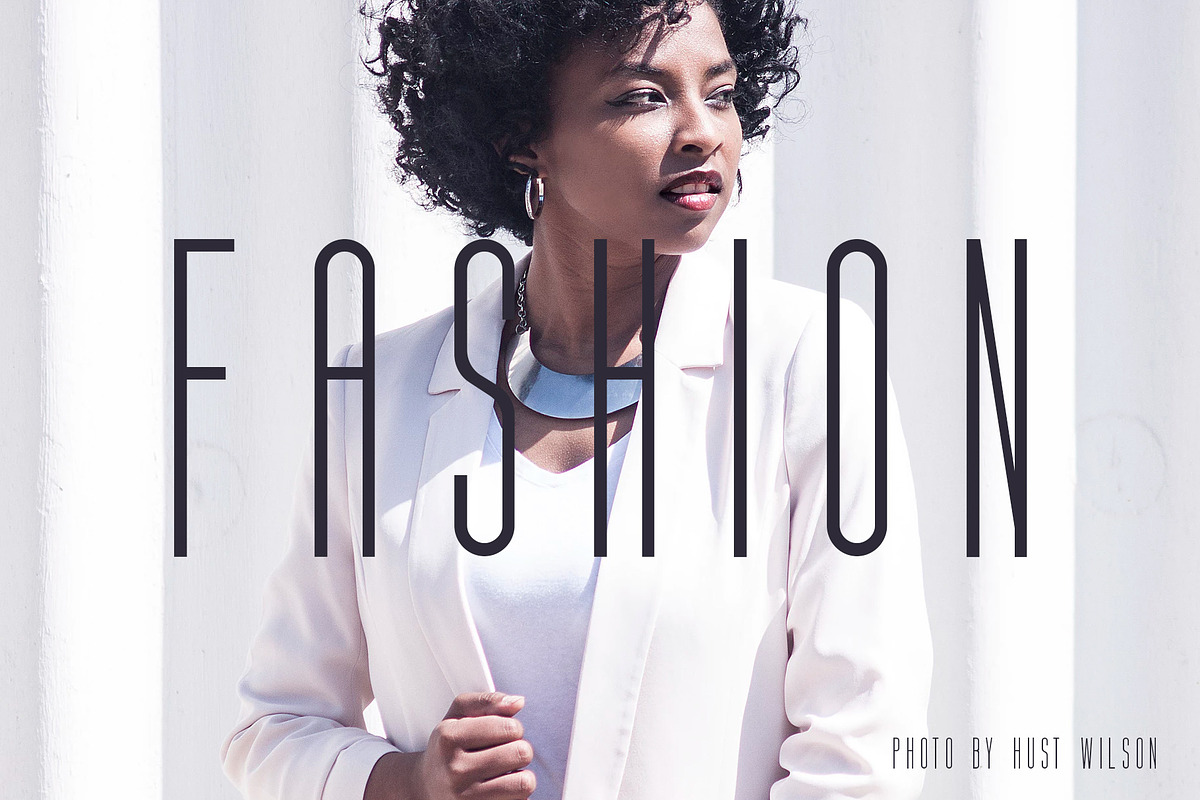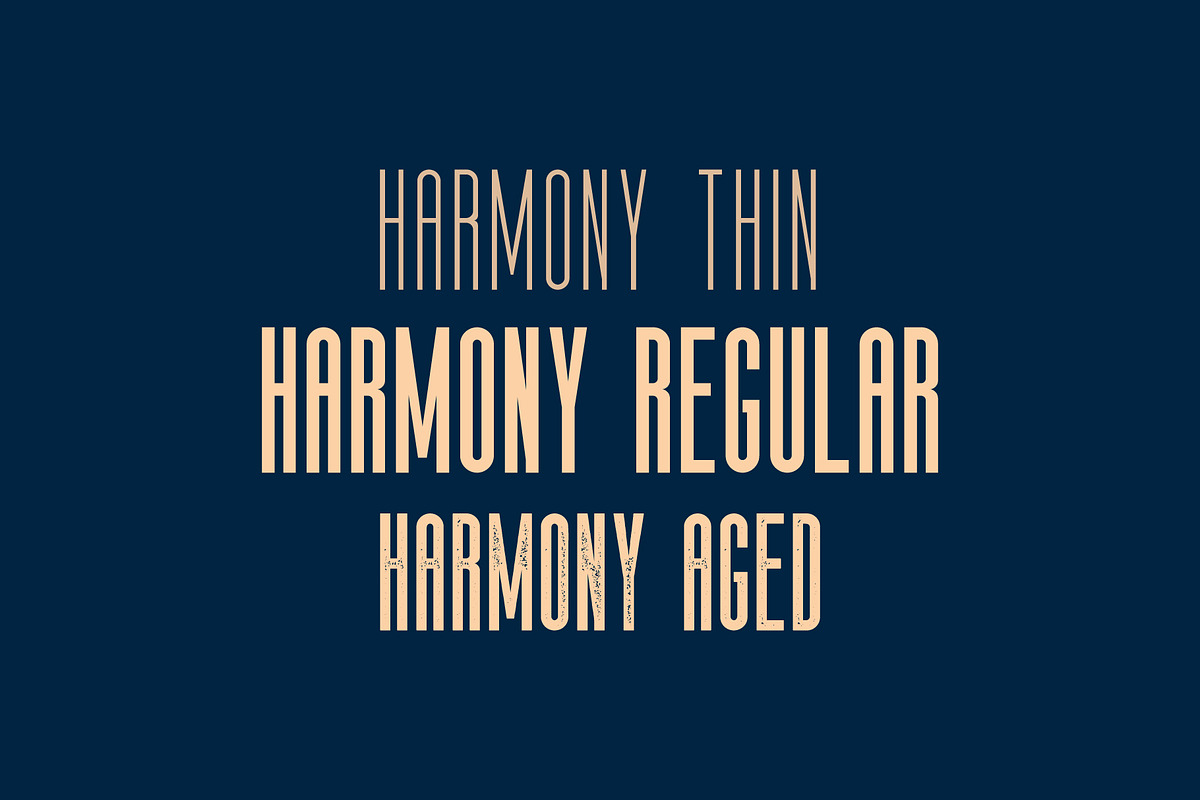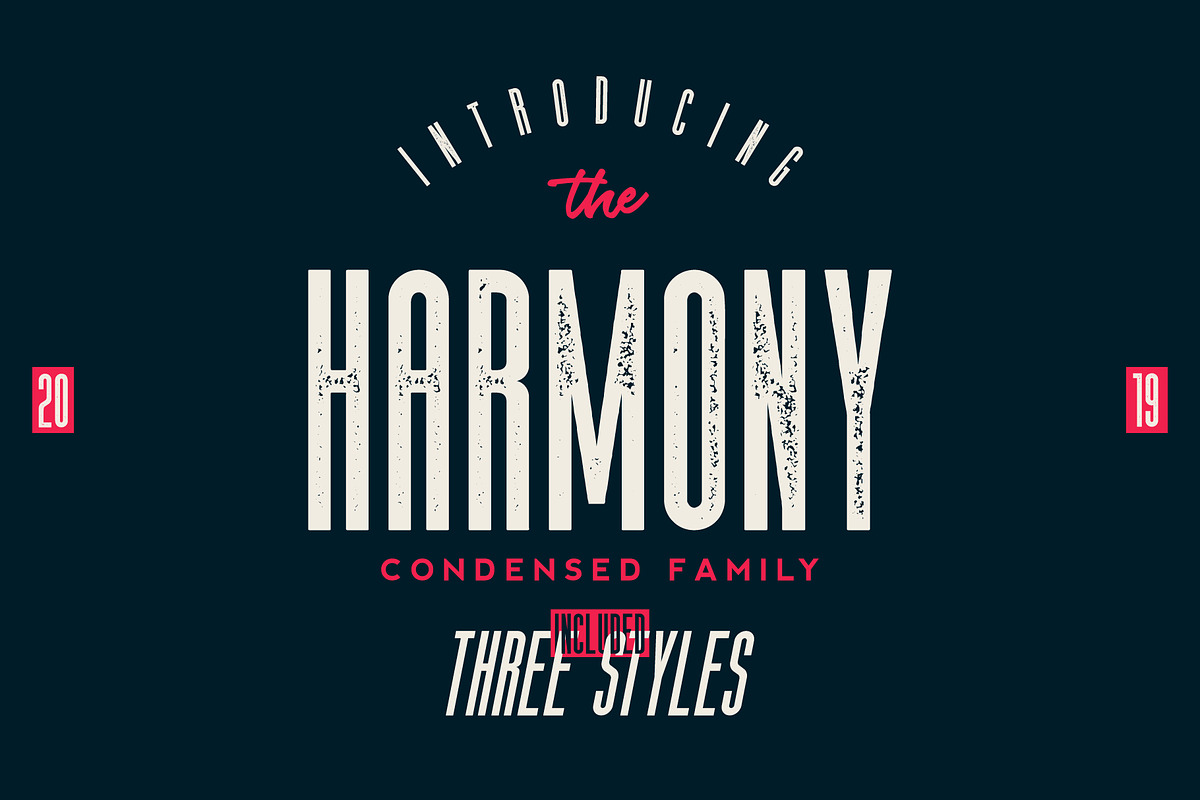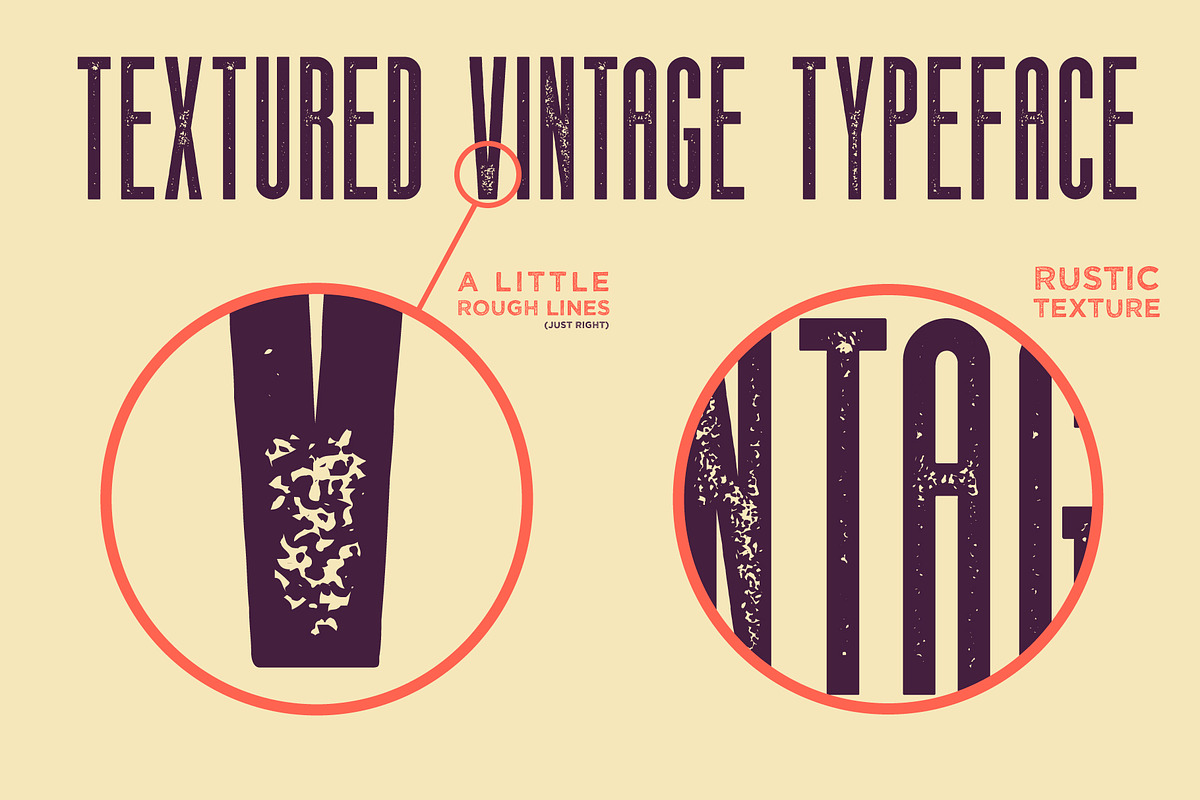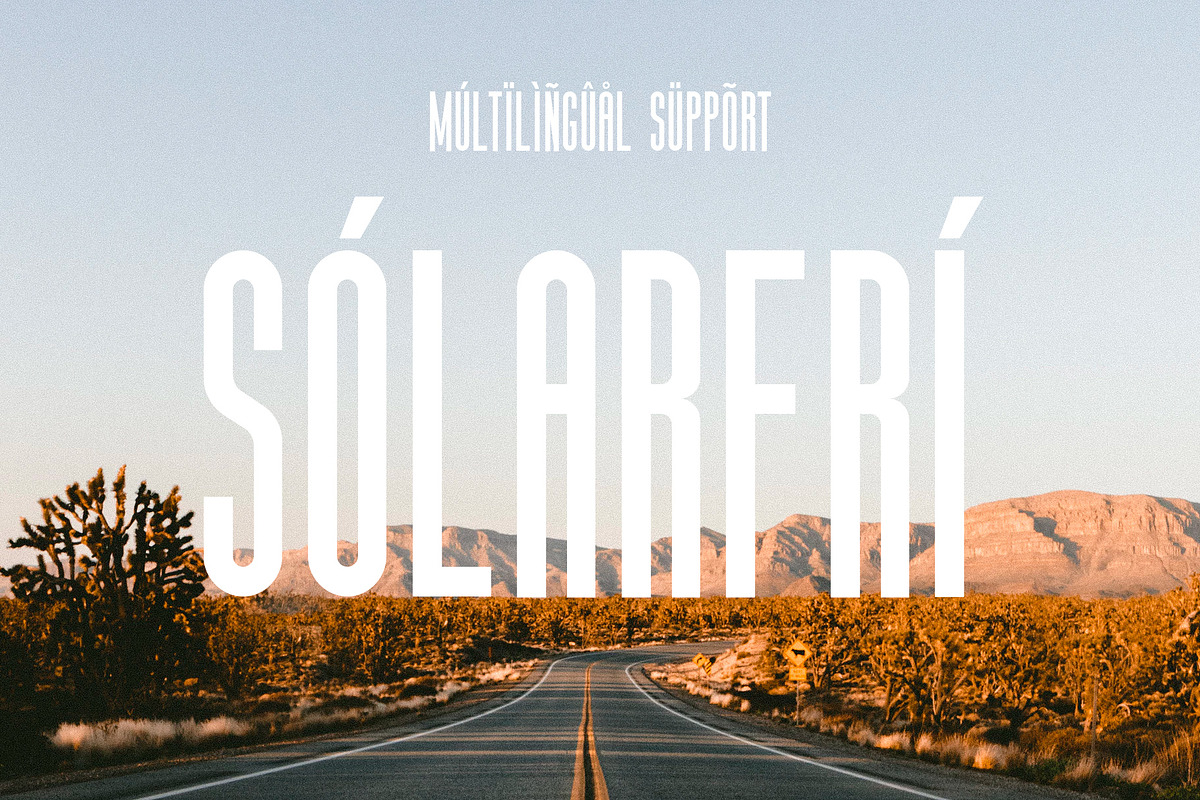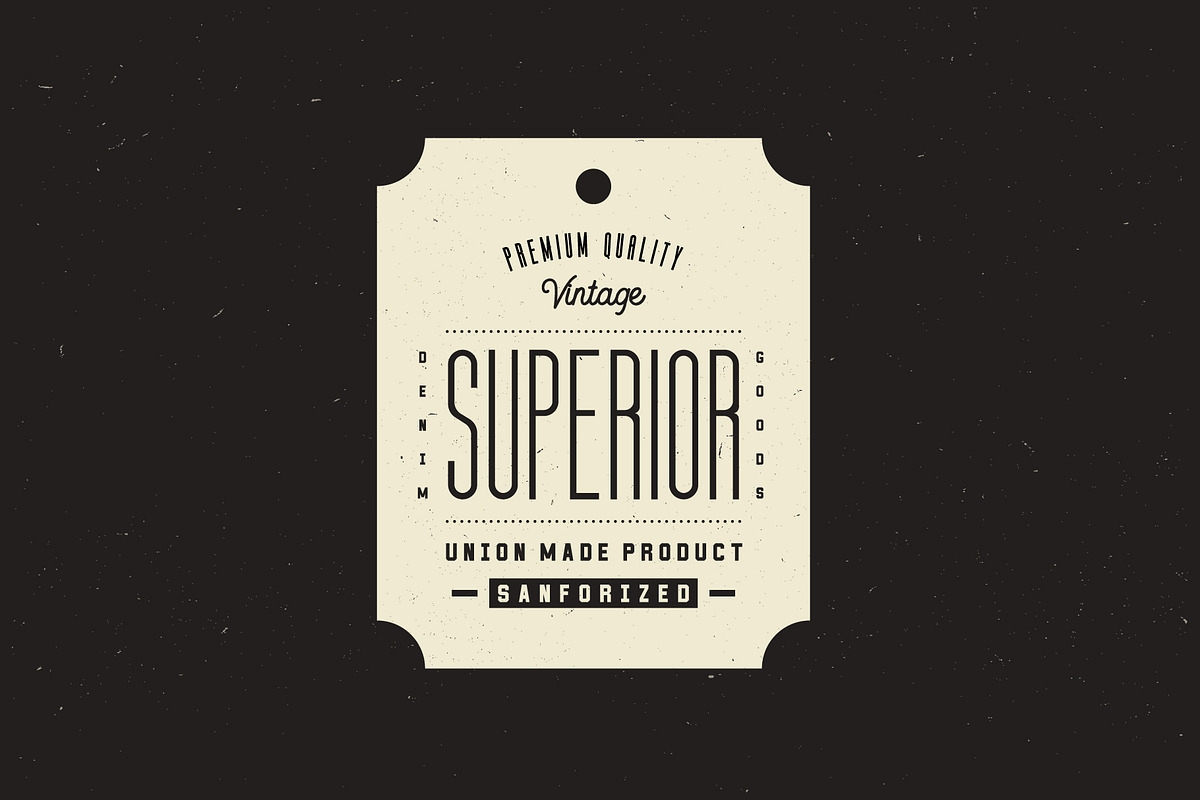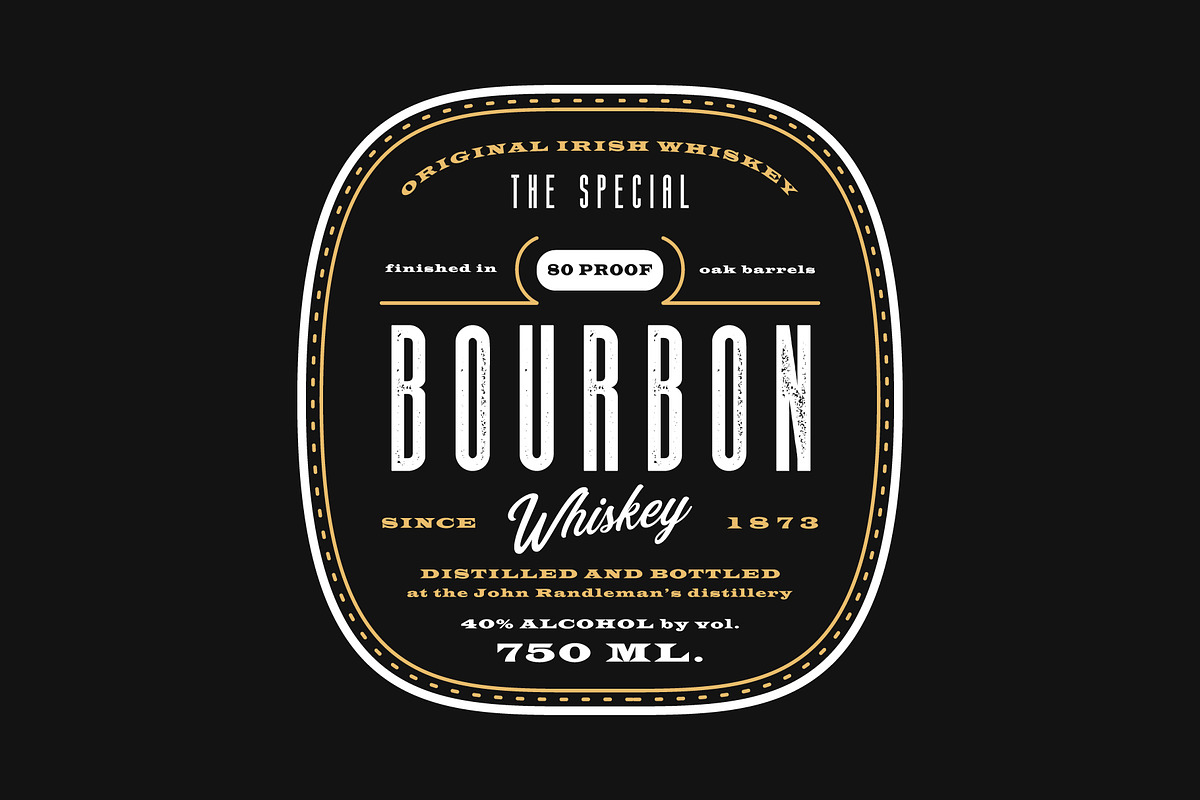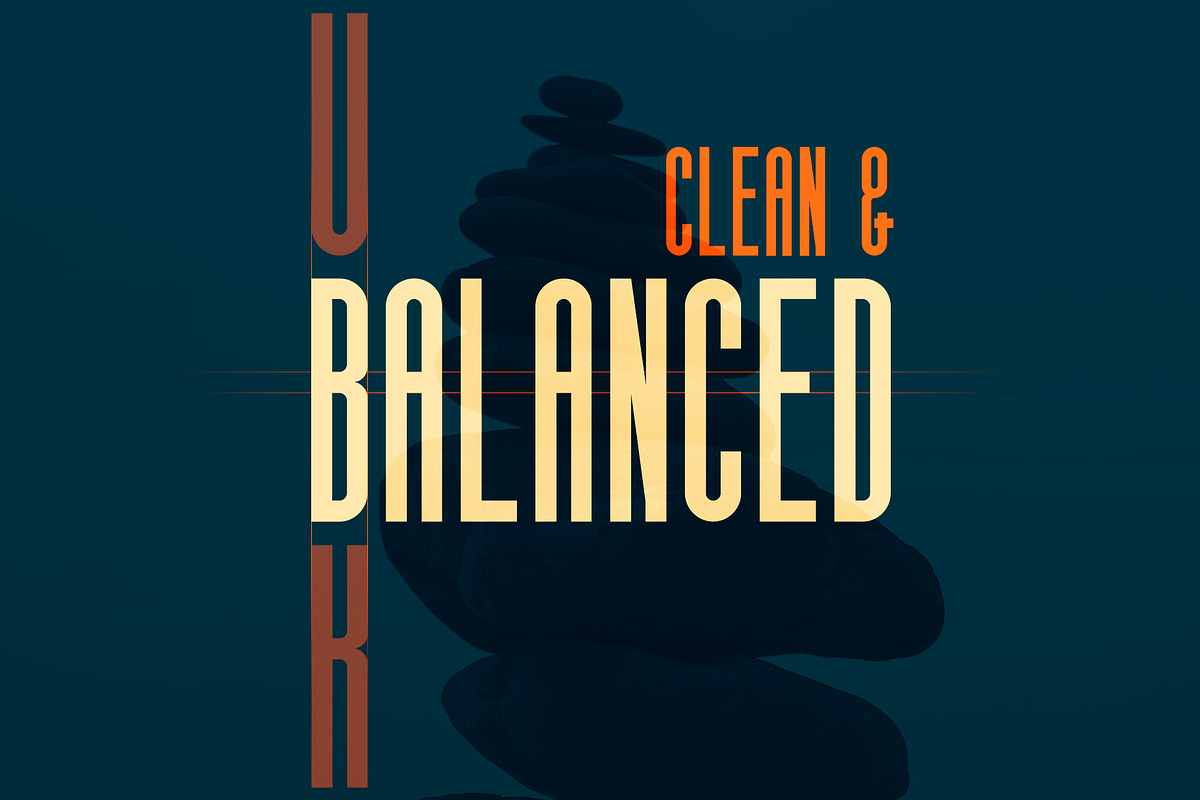
The Harmony - Condensed font family
Introducing The Harmony - Condensed font family that includes three styles (regular, aged and thin). The Harmony is universal multipurpose font family. Use clean regular version where rigor and accuracy of design is required.
Aged vintage version will help you to make your design more fresh and saucy. Use it for restaurant menus, signs, typography design.
Modern clean looking Thin version is perfect for titles on fashion magazines, business cards, flyers, posters, ads.
Also, use it for t-shirt prints, quotes and any graphic design.
Multilingual european symbols
All necessary symbols
Why The Harmony - Condensed font family is worth a look
The Harmony - Condensed font family by Roman Paslavsky fits naturally into Branding, posters, packaging, typography.